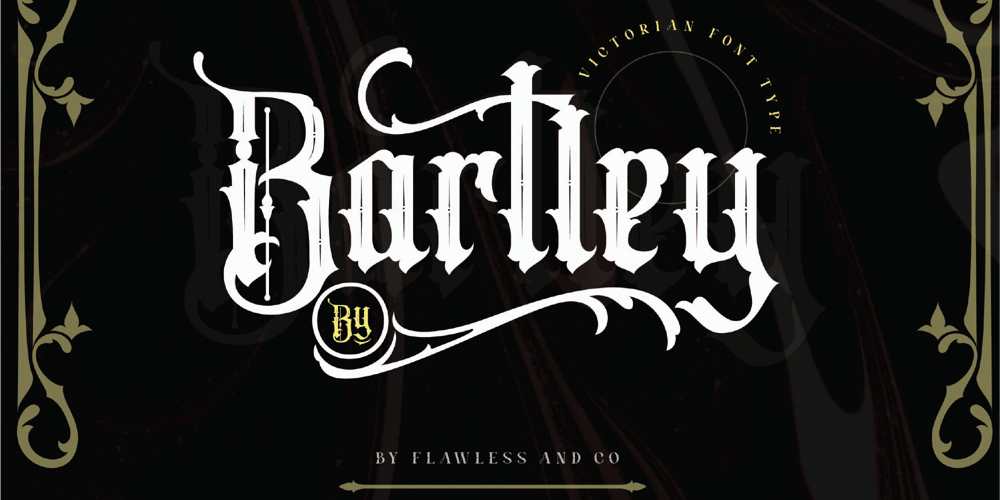
Bartley
Bartley font
Bartley Font Family was designed by Achmad Yani and published by Flawlessandco. Bartley contains 1 styles and family package options. Introducing Bartley, a striking blackletter font that merges tradition with a modern edge. This exquisite typeface is meticulously crafted to bring a touch of Gothic elegance to your designs.An Original typeface that suitable for any graphic designs such as branding materials, t-shirt, print, business cards, logo, poster, t-shirt, photography, quotes .etcThis font support for some multilingual. Modern Sweet Retro that contains uppercase A-Z and lowercase a-z, alternate character, numbers 0-9, and some punctuation.If you need help, just write me! Thanks so much for checking out my shop!